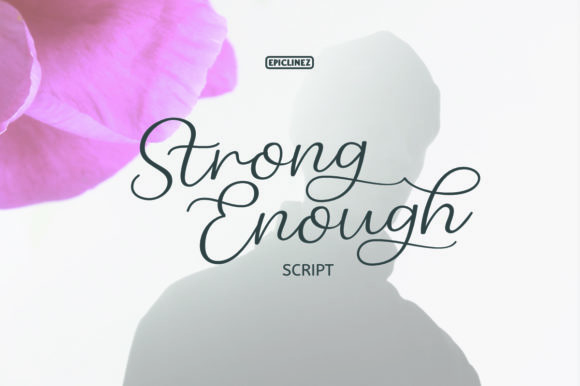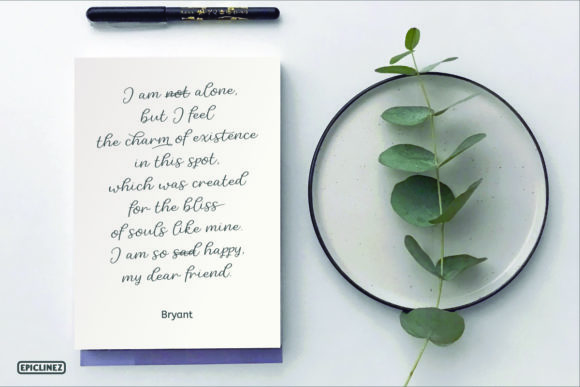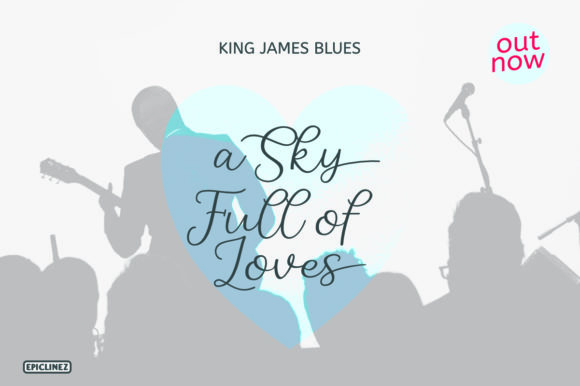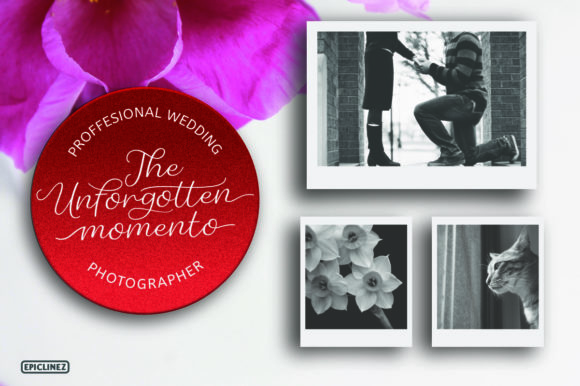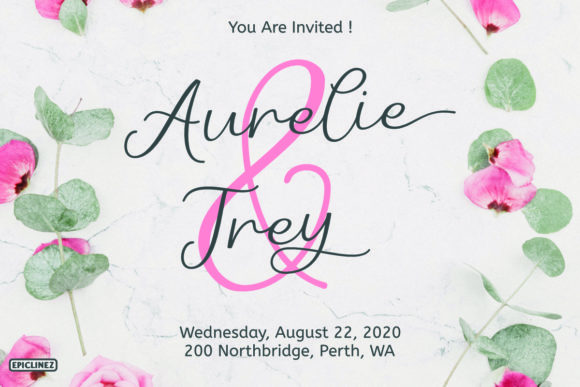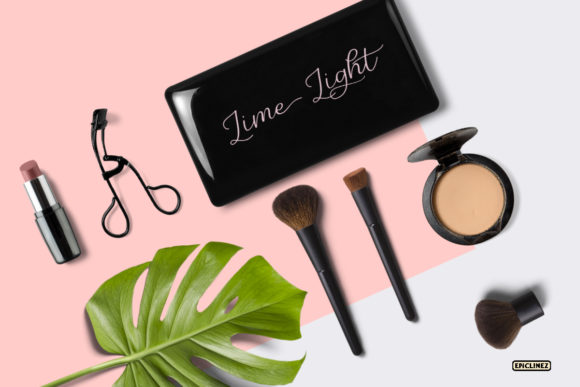
Strong Enough Font
About Strong Enough Font
Strong Enough is a beautiful and authentic modern calligraphy script that feels fresh and unique. Use it for any design project that requires a charming appearance!